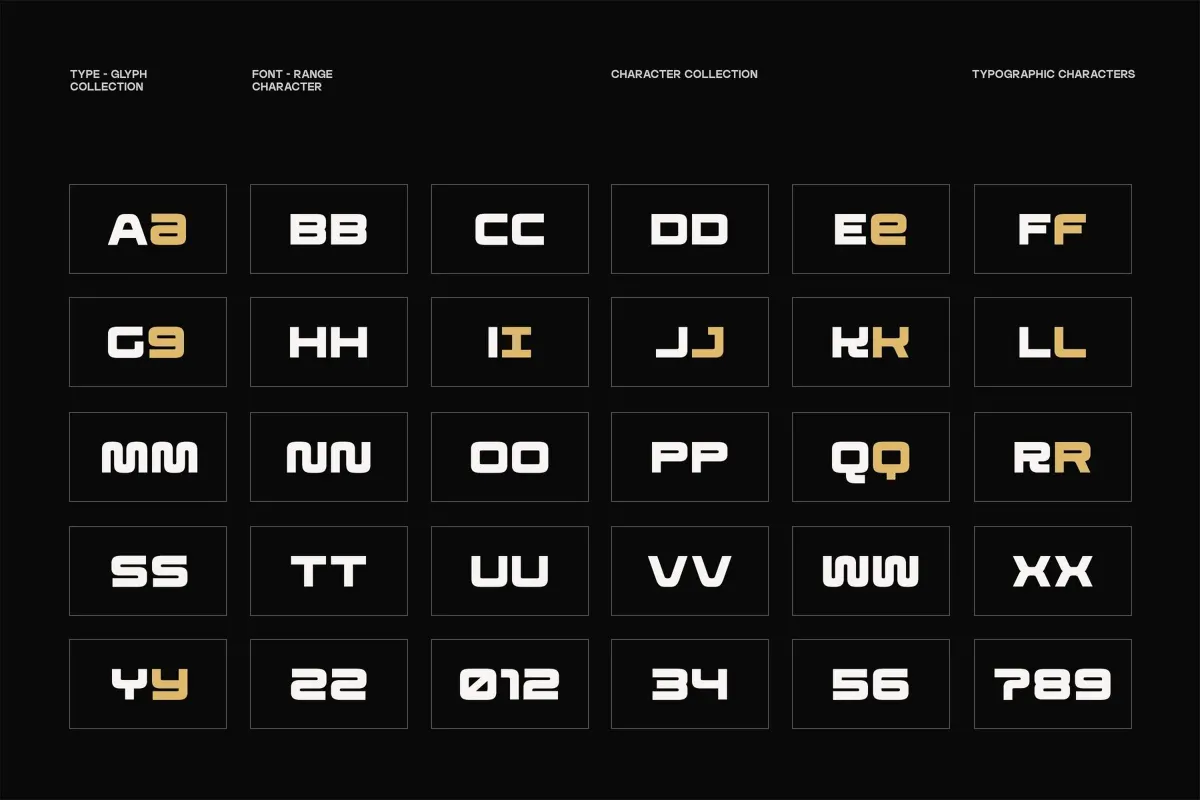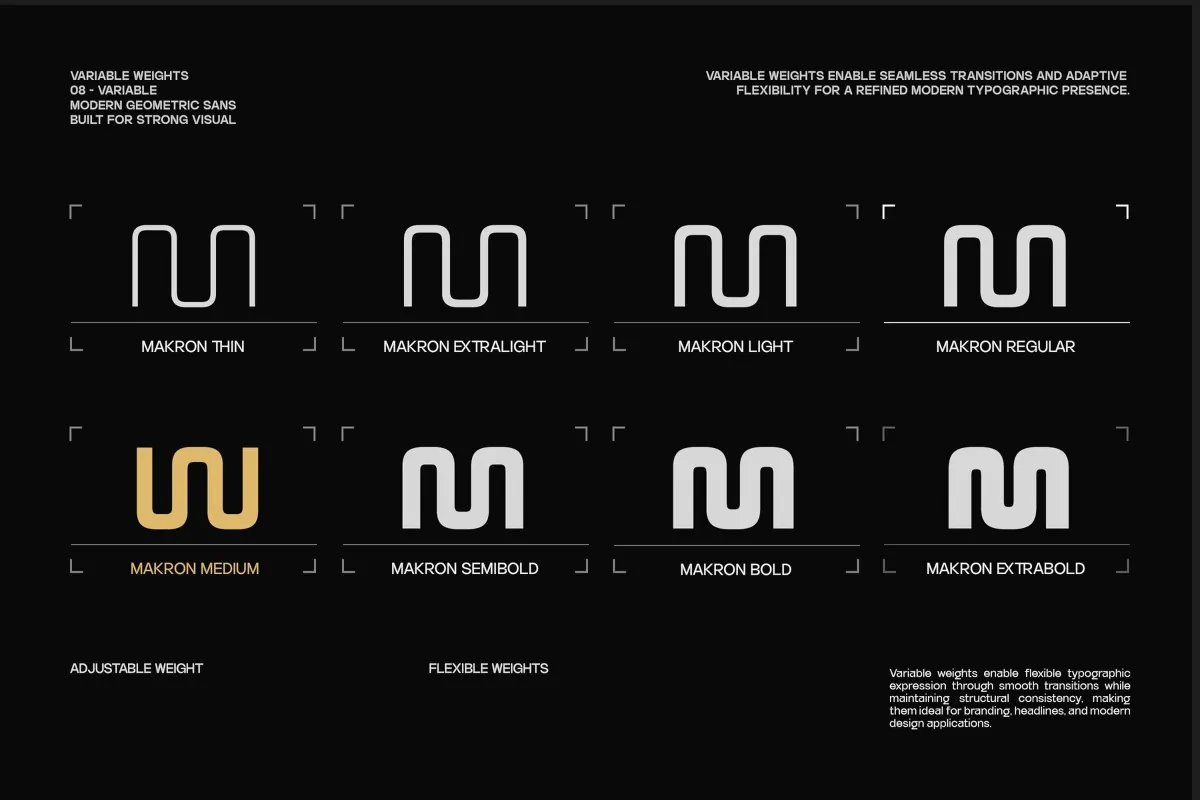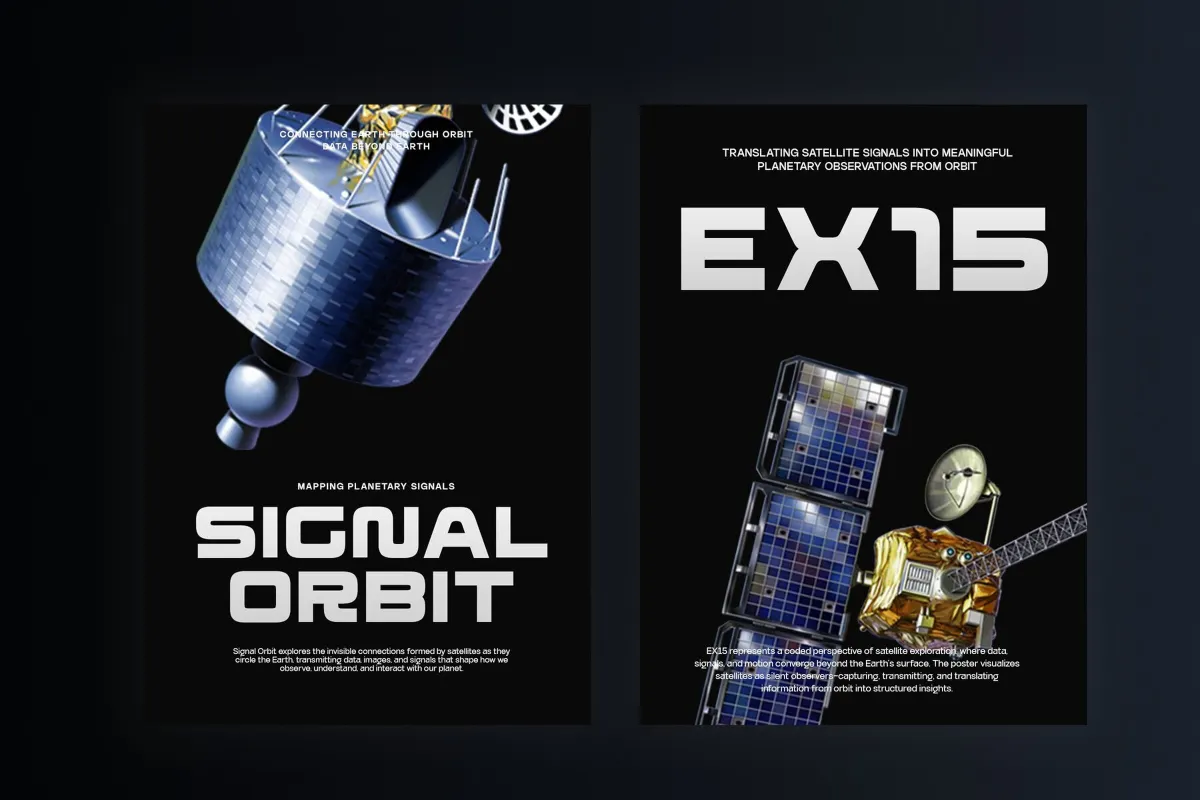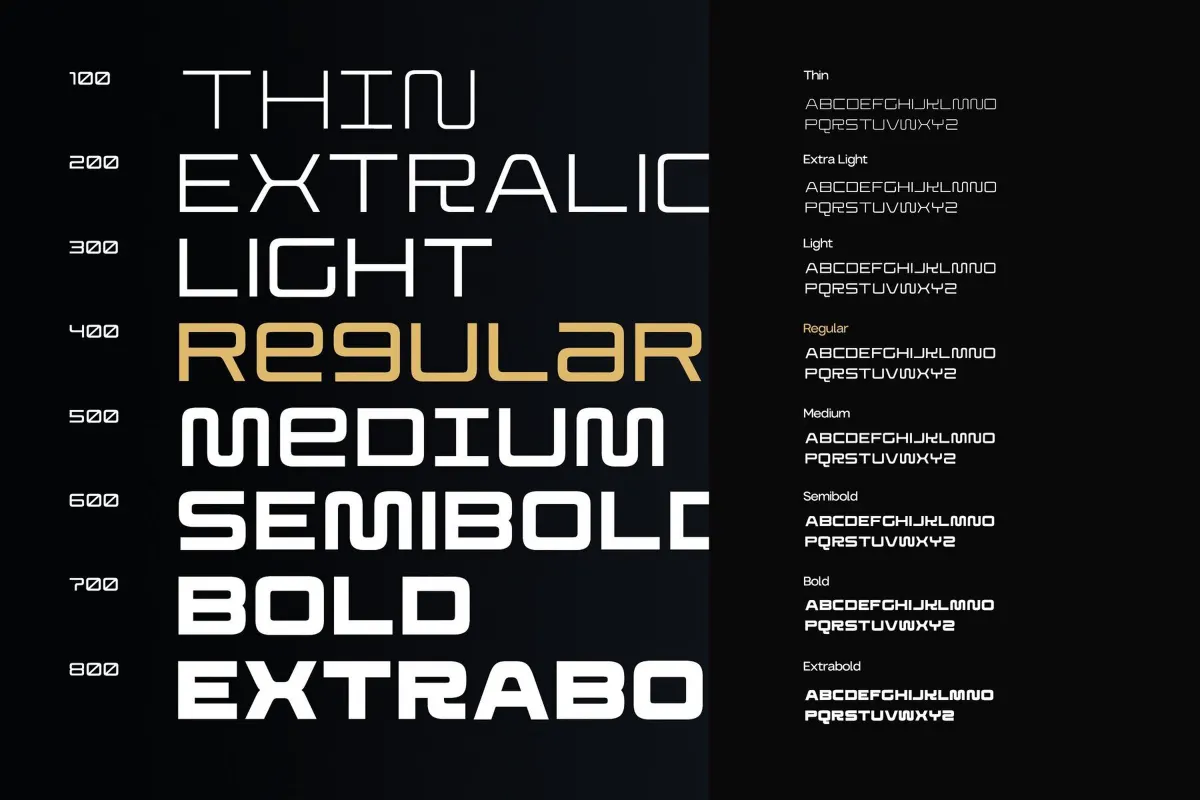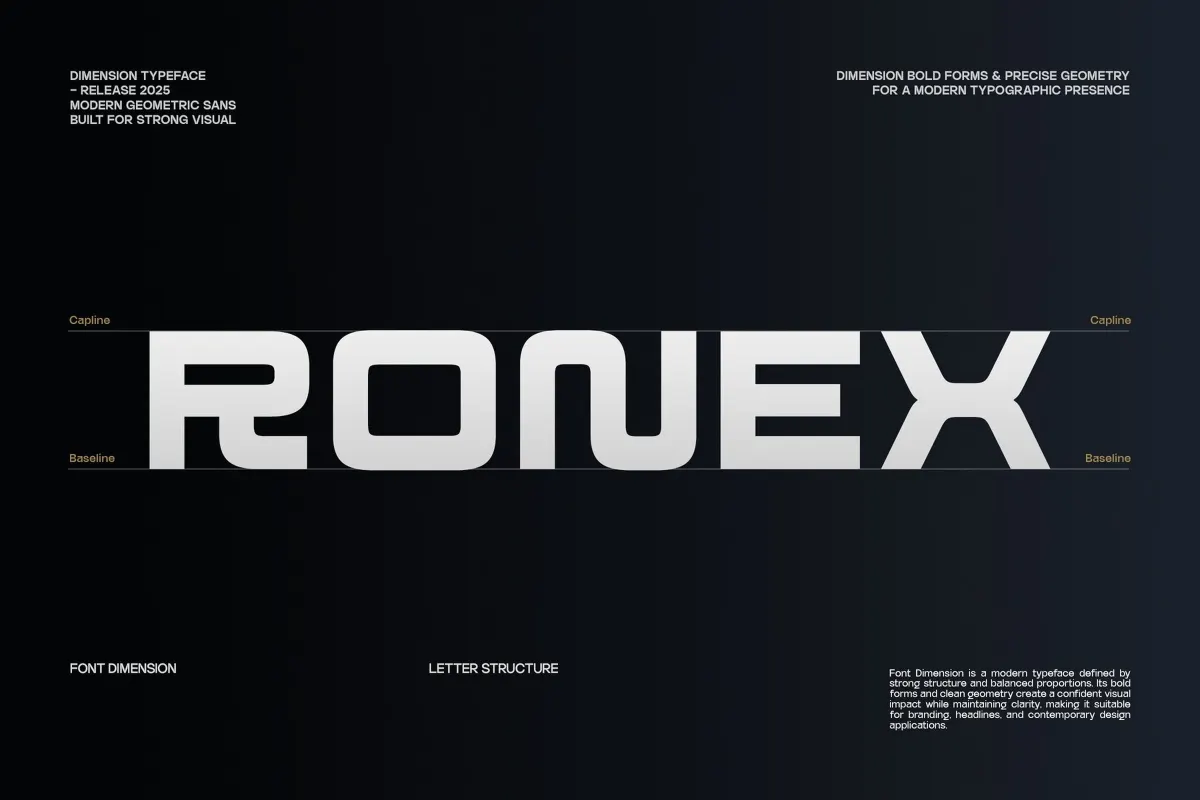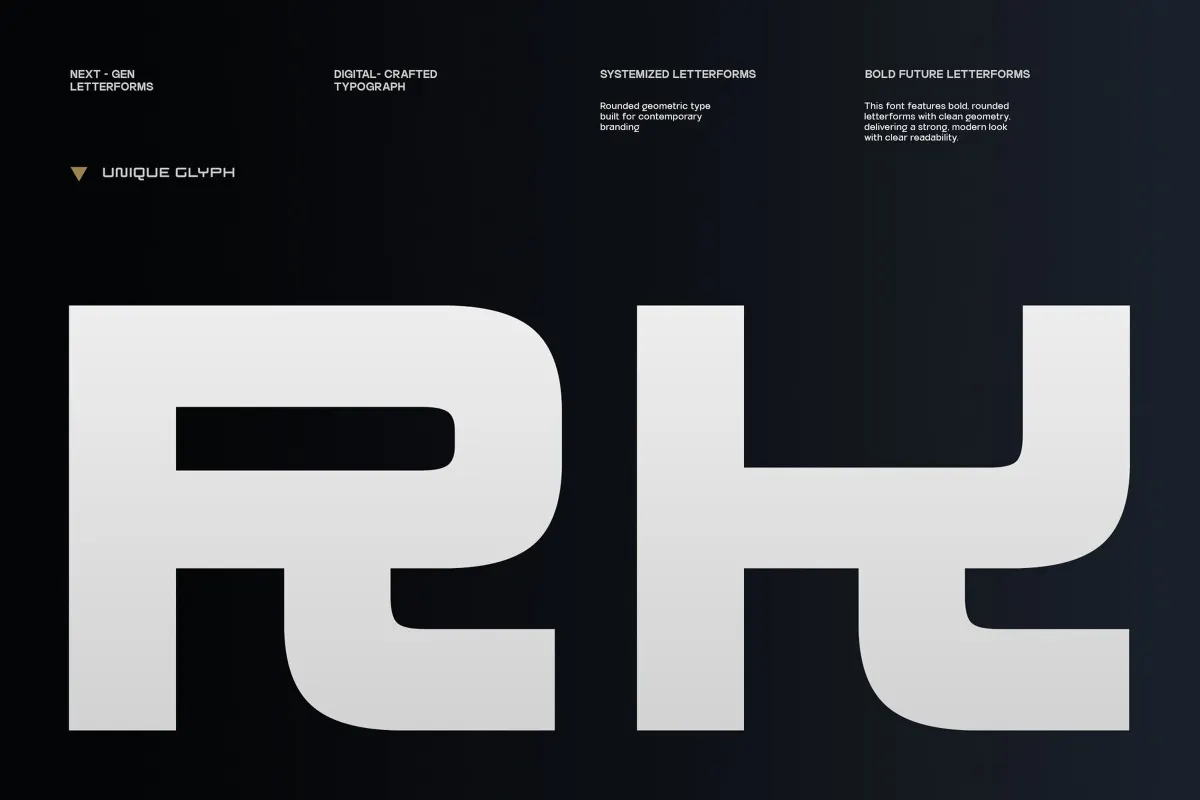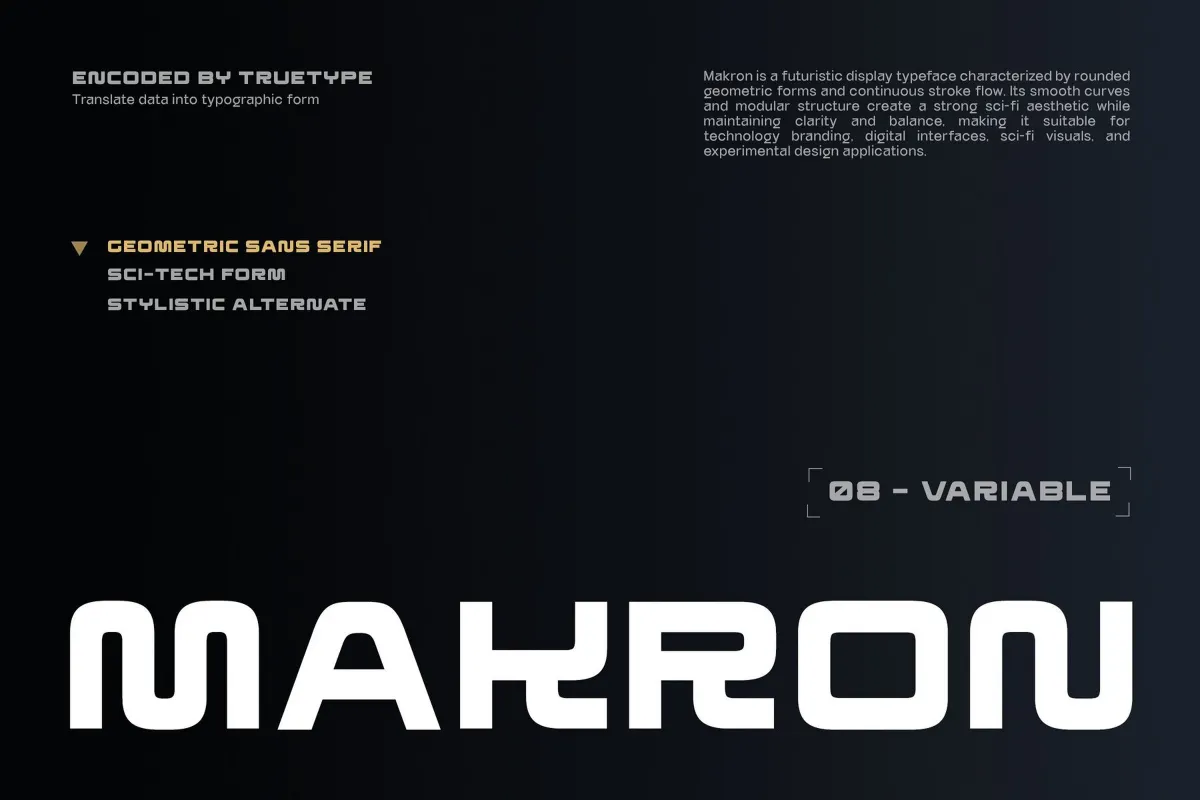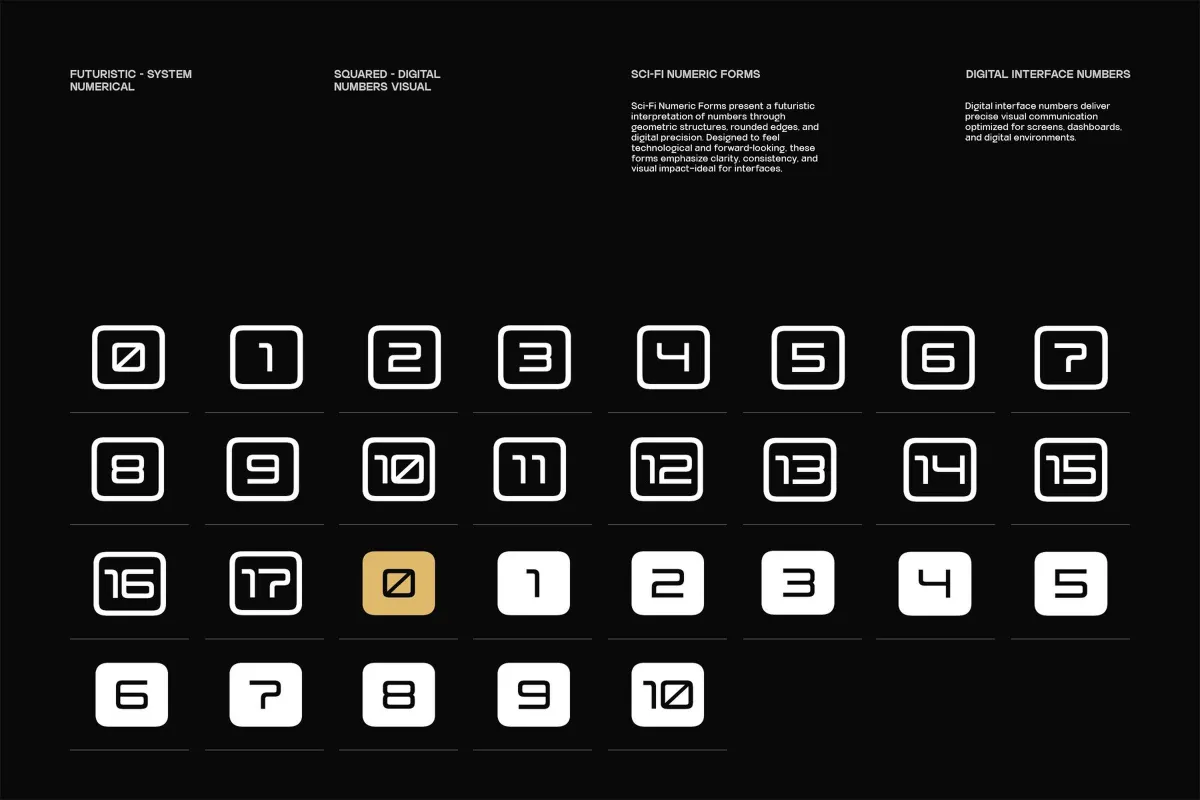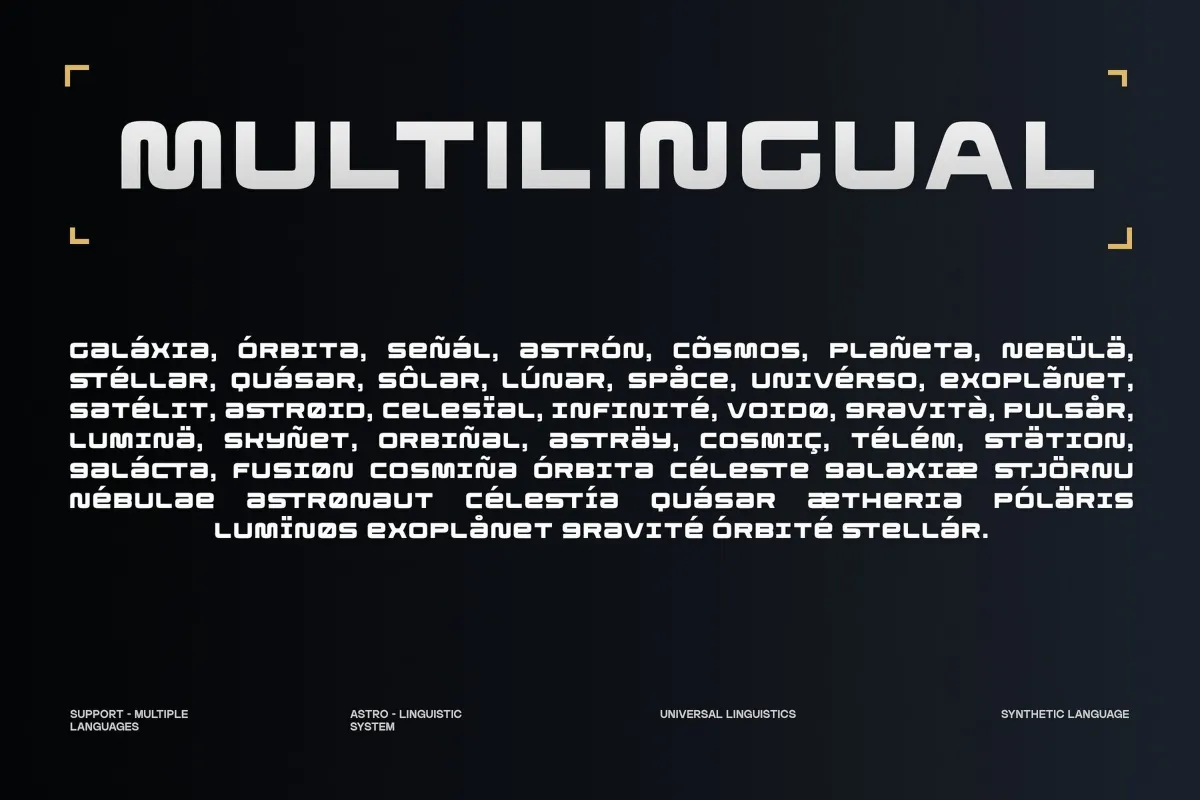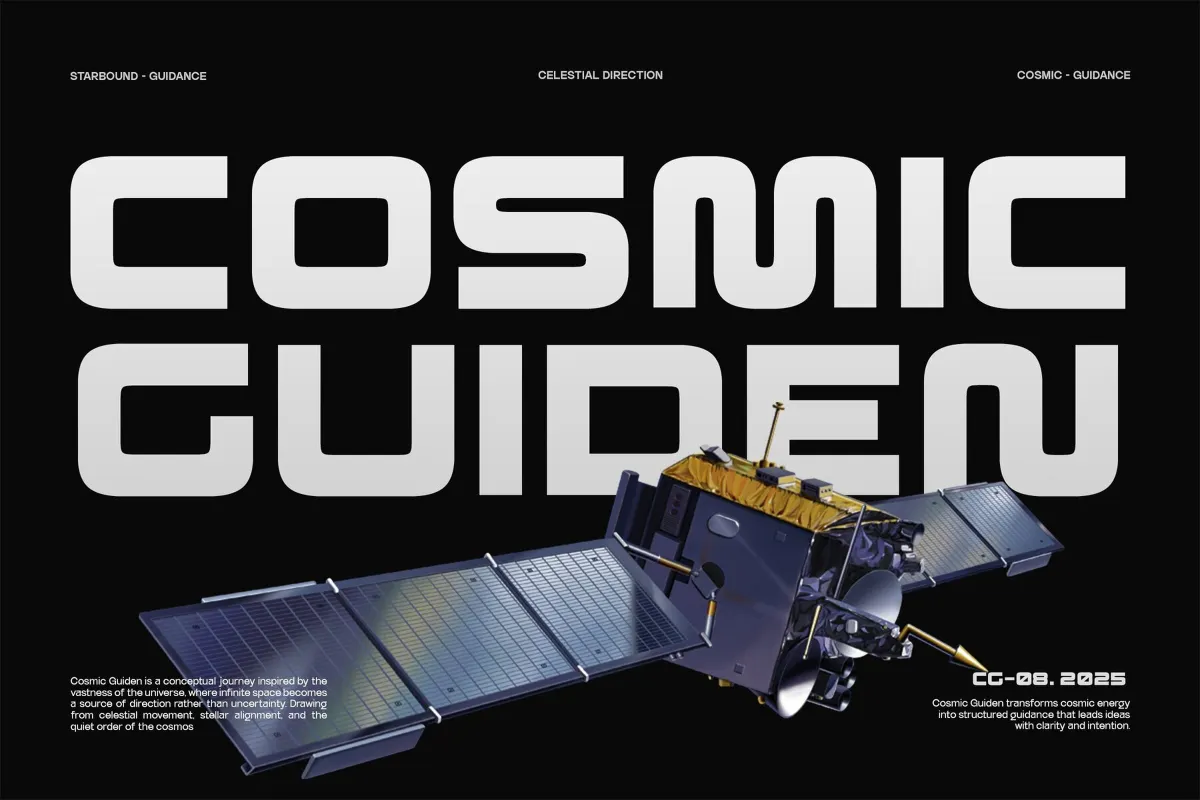
TRT Makron - Futuristic Geometric Sans Font
TRT Makron builds a rounded geometric sans with continuous stroke flow and softened corners, closer to a satellite-dashboard interface than a general-purpose display face. Eight weights move from a hairline Thin through a solid Extra Bold, and a variable font covers that same range in a single file. Three letters, E, G, and K, come with stylistic alternates reachable through the OpenType panel.
Ligatures cover ff, fi, fl, ffi, ffl, and fft, plus discretionary pairs like Th, ct, ft, and tt, and a broad Latin Extended character set reaches into Polish, Turkish, Czech, Romanian, and Baltic diacritics. Use it for sci-fi branding, tech interfaces, data visualizations, motion graphics, and futuristic editorial systems.
- Uppercase & lowercase;
- Numerals, punctuation & symbols;
- 8 weights: Thin, ExtraLight, Light, Regular, Medium, SemiBold, Bold, ExtraBold;
- Variable font covering the full weight range;
- Ligatures (ff, fi, fl, ffi, ffl, Th, ct, ft, tt) and stylistic alternates on E, G, and K;
- Superior, inferior, numerator, denominator, tabular, and proportional numeral sets;
- Multilingual support: Western, Central, and Eastern European Latin Extended coverage